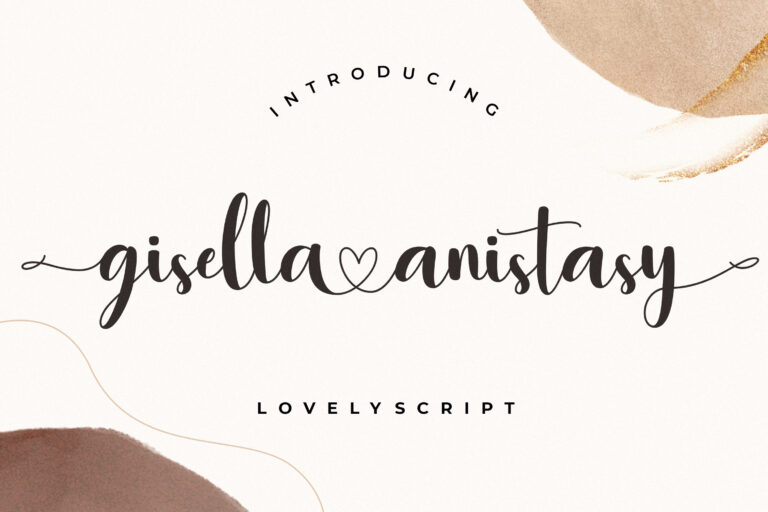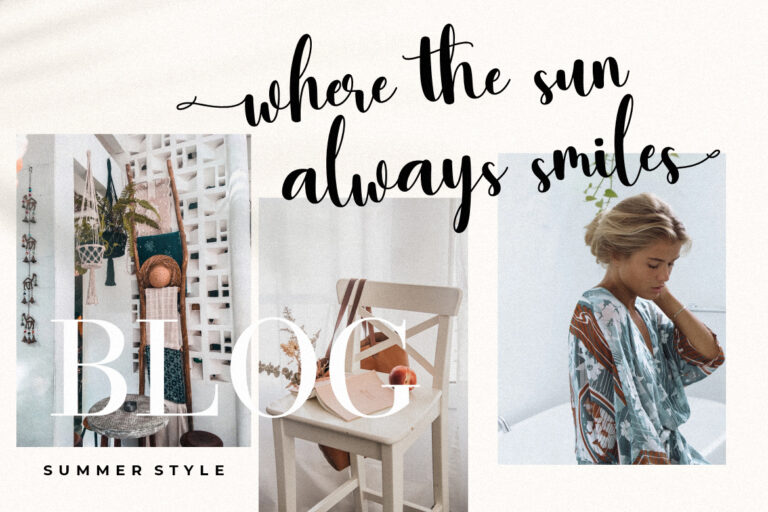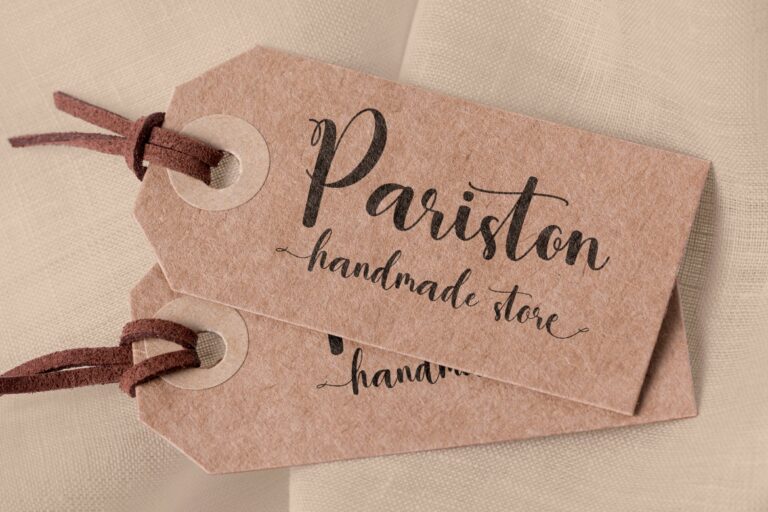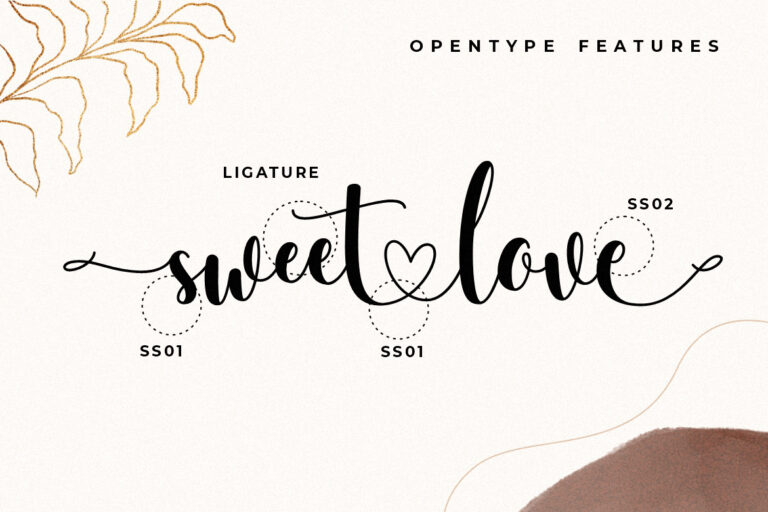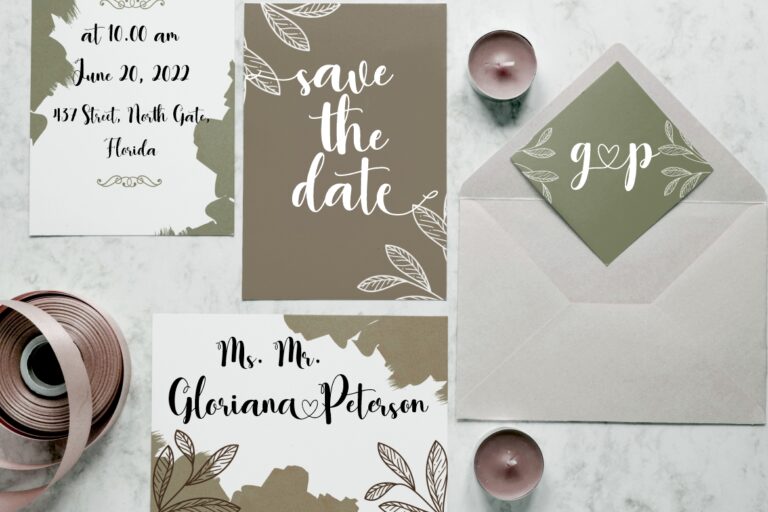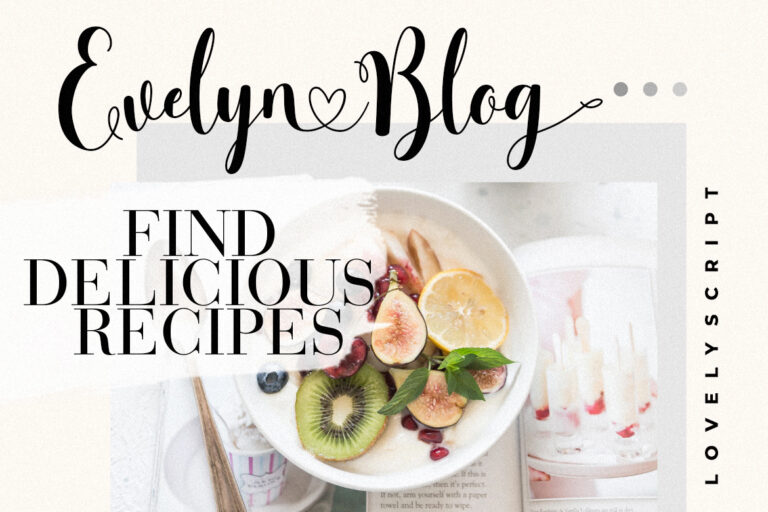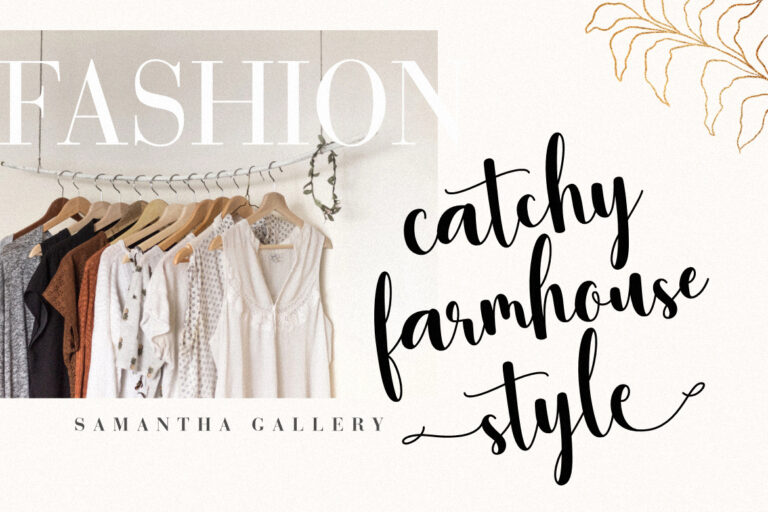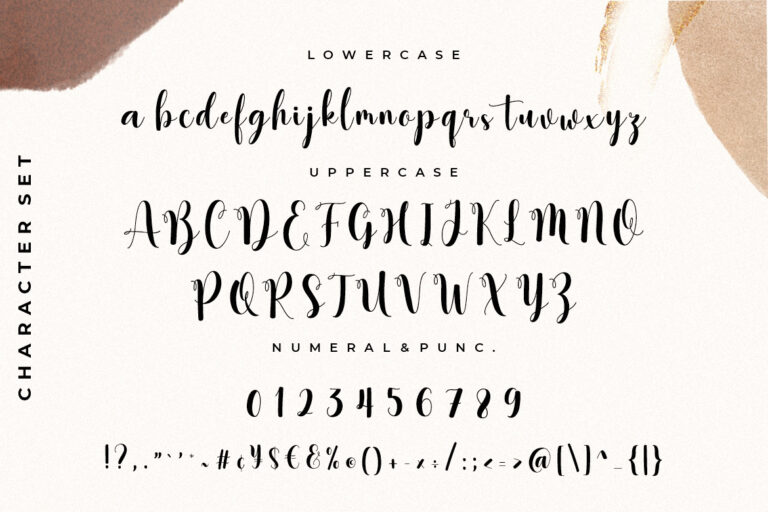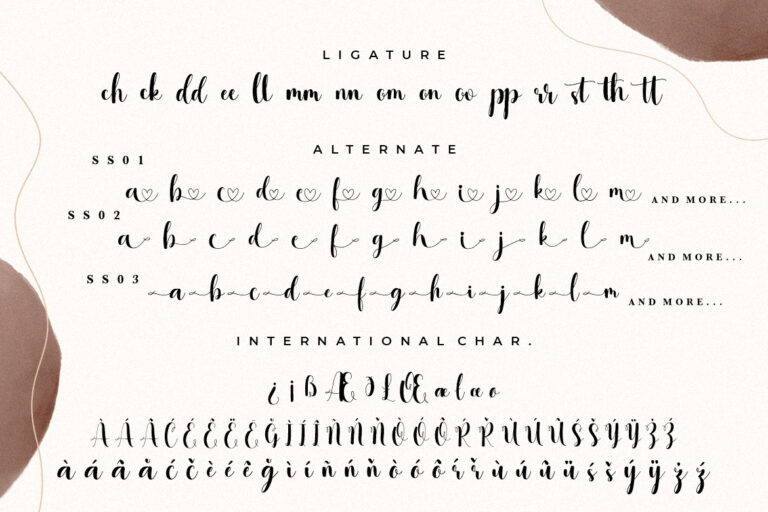
Gisella Anistasy Lovely Script
Gisella Anistasy is lovely script font with calligraphy modern style that looks classy and lovely.
Gisella Anistasy would perfect for photography, watermark, social media posts, advertisements, logos & branding, invitation, product designs, label, stationery, wedding designs, product packaging, special events or anything that need handwriting taste.
- Ton of glyphs (include Uppercase, Lowercase, Numerals & Punctuations, Ligature, Alternate)